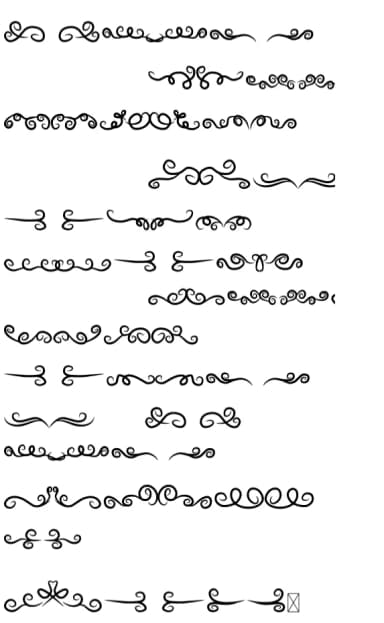
1 / 5About Bee Divider Font
This dingbat collection features ornamental dividers and decorative flourishes with a distinctly retro, Western aesthetic. Bee Divider, designed by CraftedType Studio, is built around charming visual separators, corner pieces, and embellishments that recall mid-century design with genuine craft appeal. Rather than traditional letters, you get a curated set of marks that feel intentional and period-authentic, with multiple divider styles and ornamental options to mix and match within a single project.
This font works brilliantly for scrapbooking layouts, vintage-themed greeting cards, rustic table card designs, and DIY craft signage where ornamental breaks add visual rhythm. Crafters often layer different marks across a project to section off content and add personality without relying on text, creating sophisticated visual hierarchies on a budget. The glyph set includes plenty of options so you're not limited to a single divider style, and the OTF format ensures smooth integration with standard design software and clean printing.
Bee Divider Font